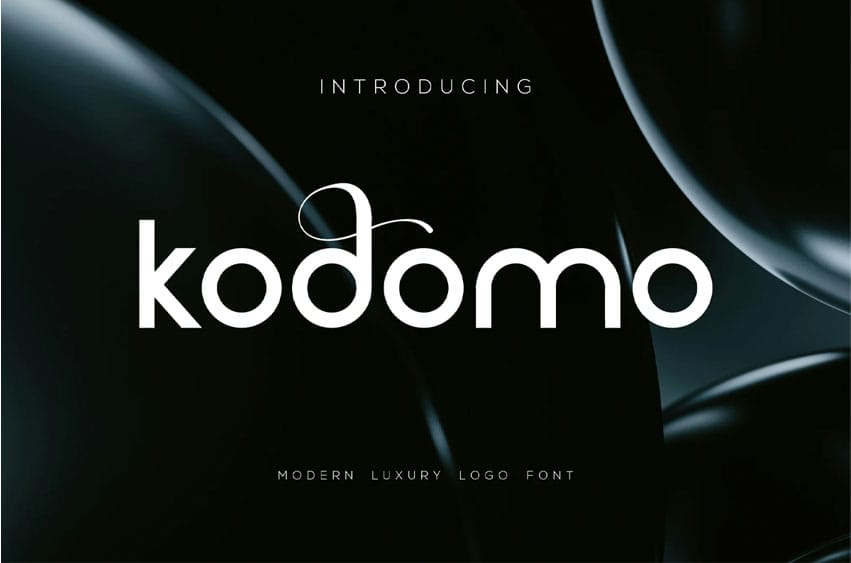
Kodomo Font Corporate Sans Luxur is and awesome and authentic display font.
It fits in headlines, logos, posters, flyers, invitations, name cards, branding materials, print media, editorial layouts, and many more.
- Number & Symbol
- UPPERCASE, lowercase
- Alternative & Legature